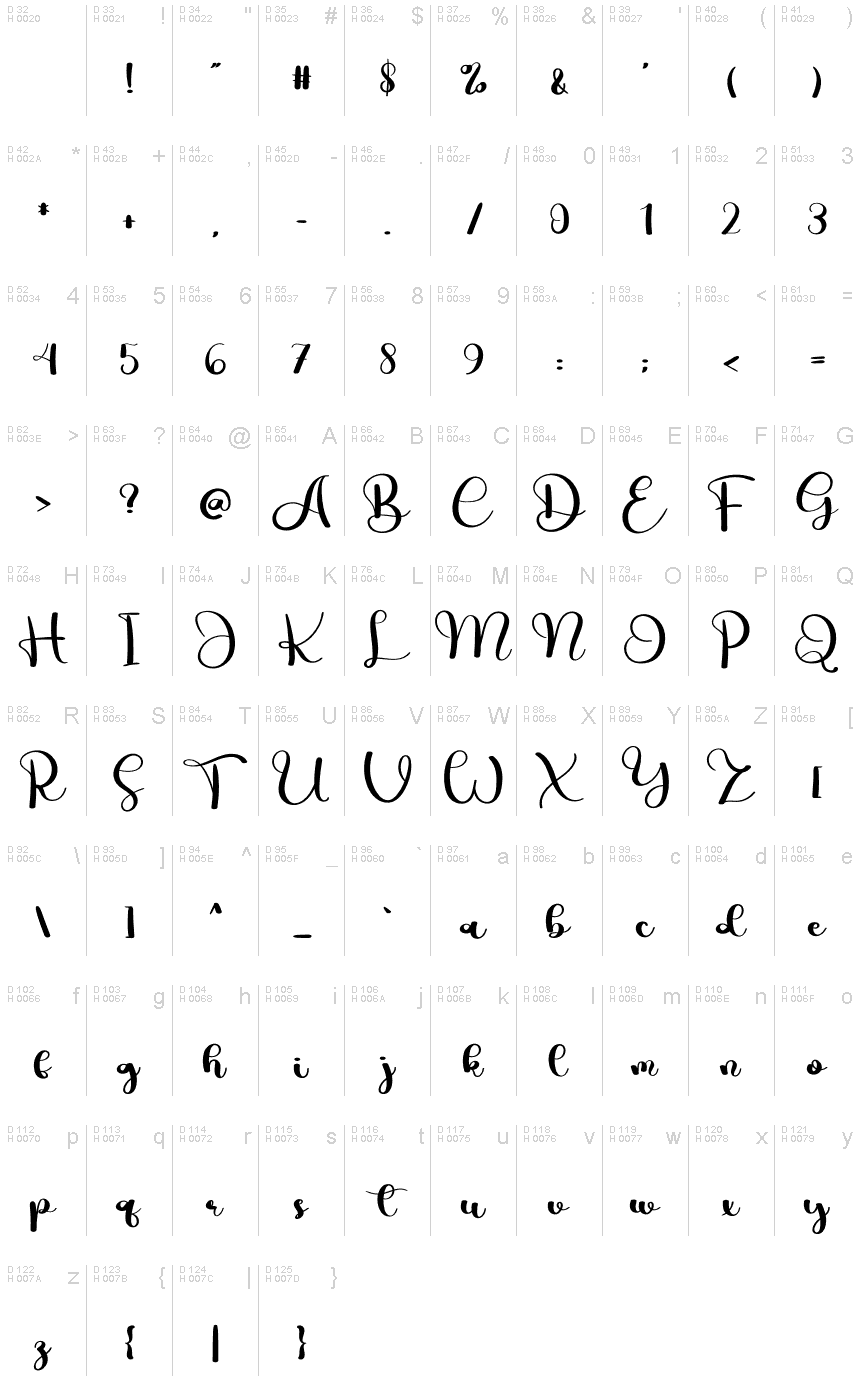
Prestige
Prestige is a fashionable script font designed by Erik Studio. It is neatly crafted and highly detailed. Whatever the topic, Prestige will be a wonderful asset to your font library, as it has the potential to enhance any creation.